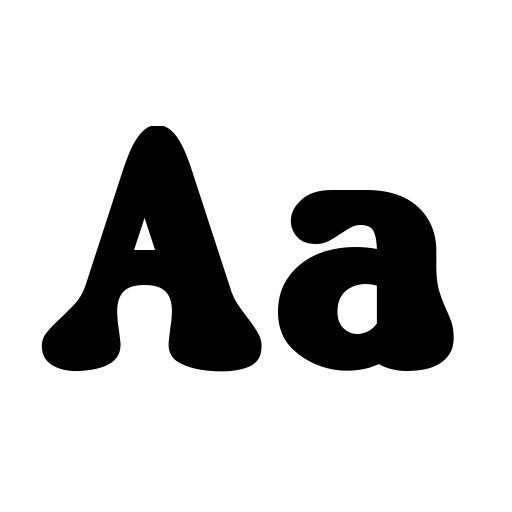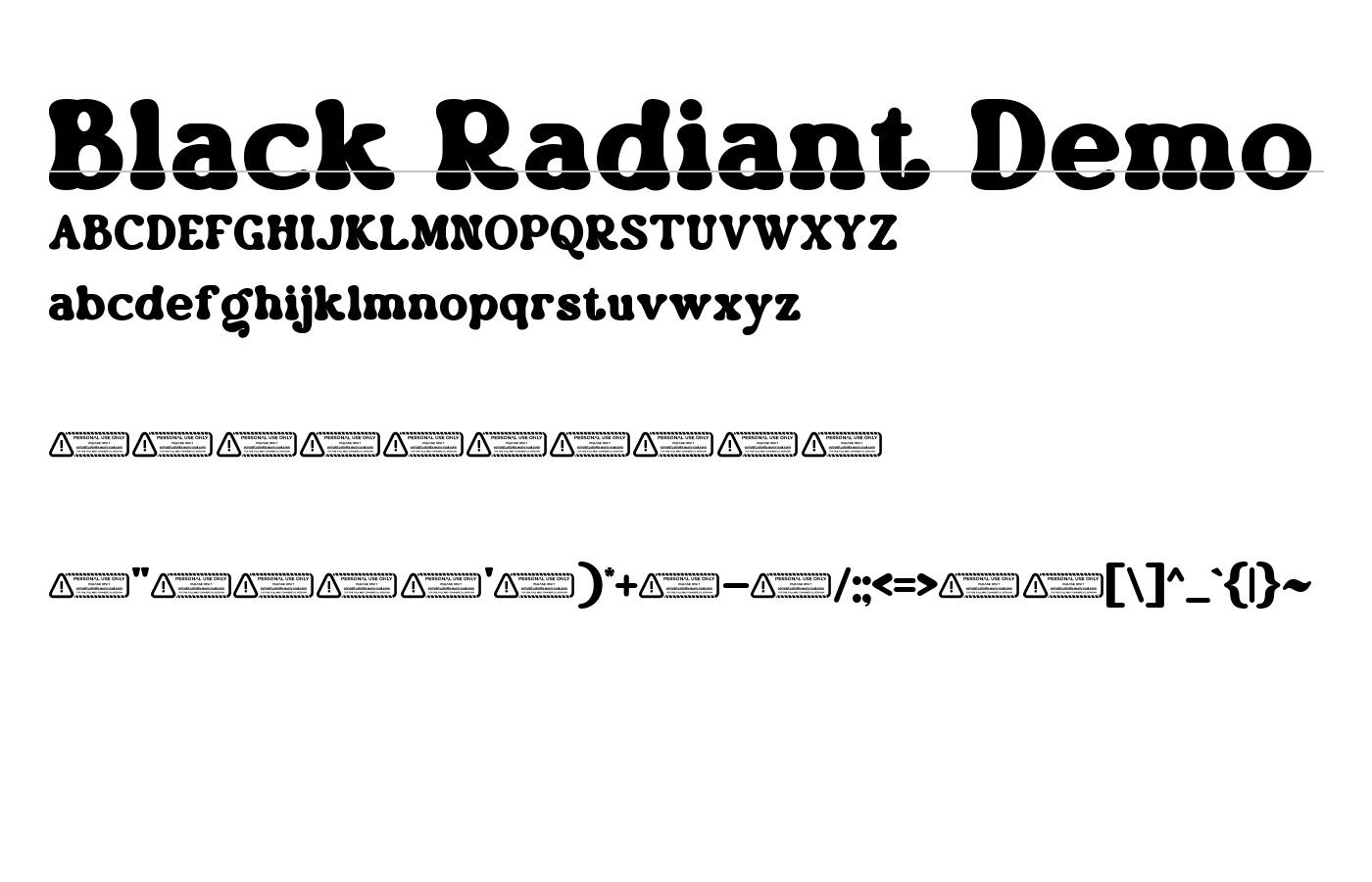
Black Radiant Demo is a bold, slab serif font with a playful and rounded character, featuring thick strokes and soft, smooth edges that give it a friendly, approachable feel. Its chunky letterforms and moderate x-height make it ideal for eye-catching headlines and branding that needs a strong yet whimsical personality. This font works well for creative logos, posters, and packaging where a fun and memorable style is desired.
Black Radiant Demo Font
About Black Radiant Demo Font